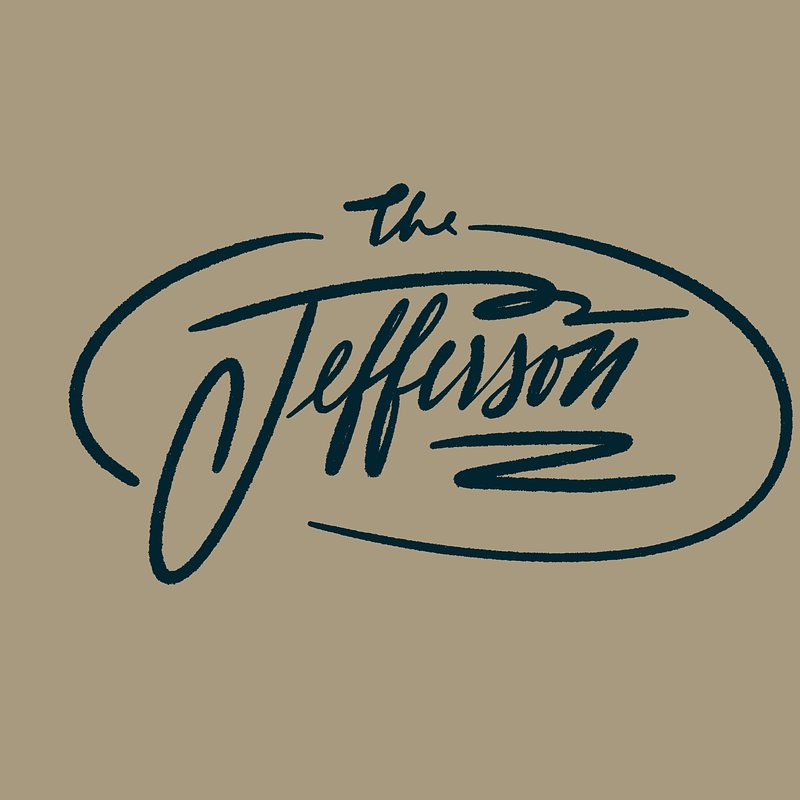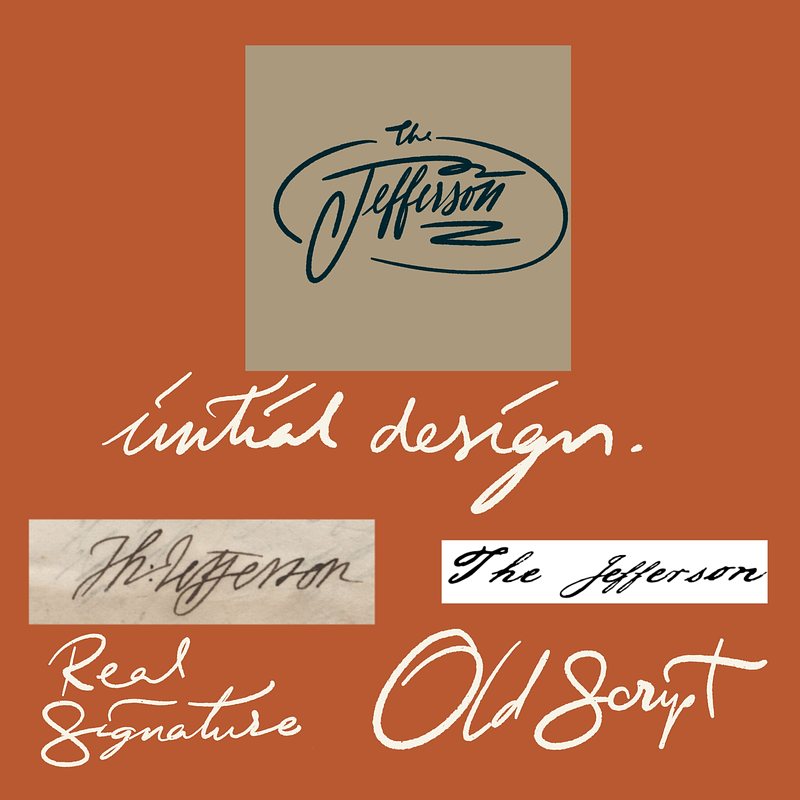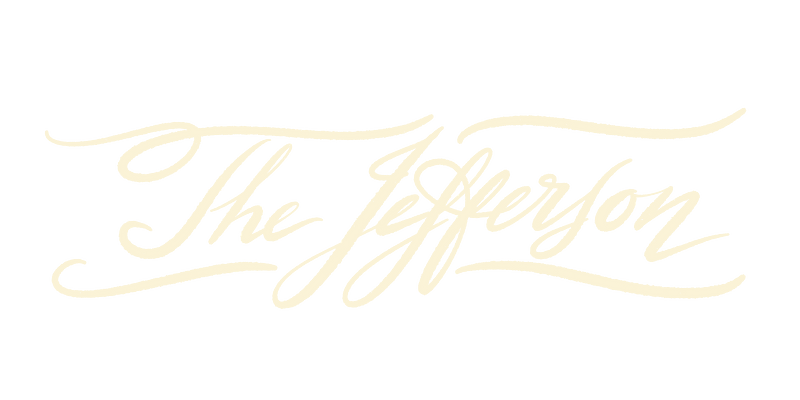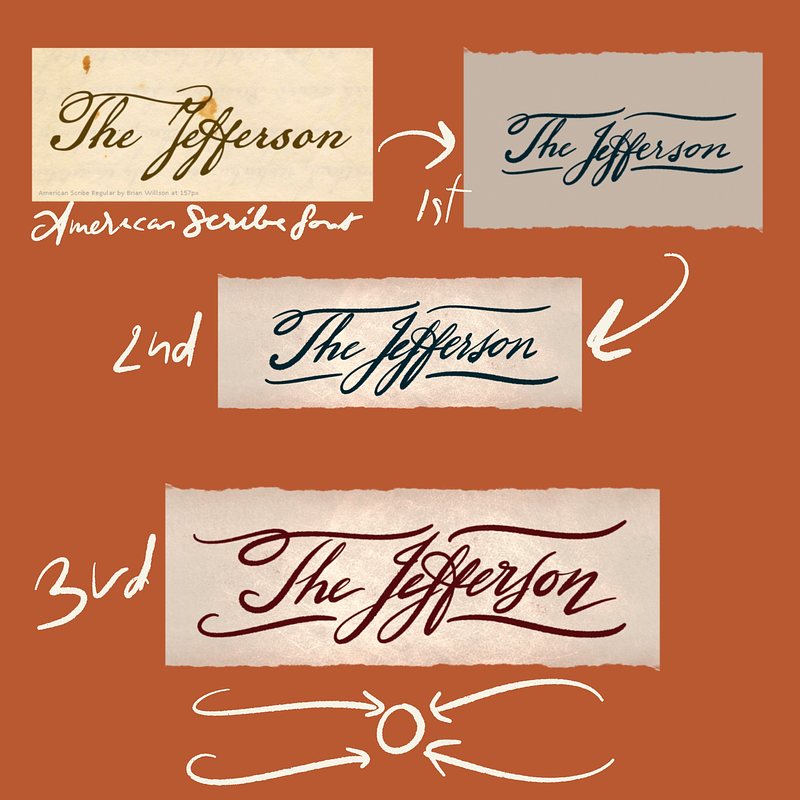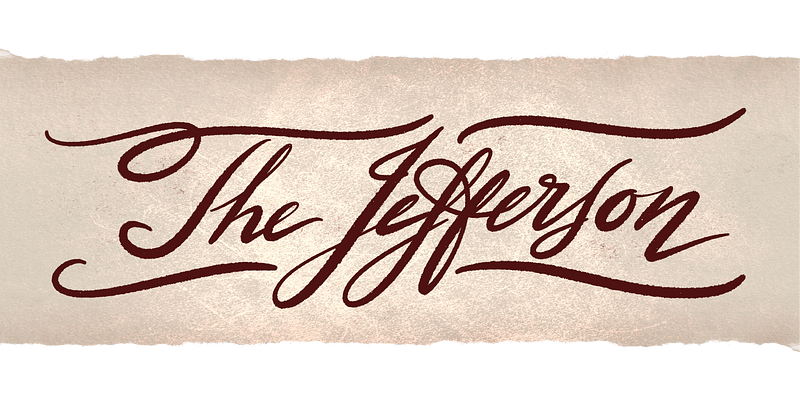
The Jefferson logo
I thoroughly enjoyed collaborating with Aaron on the logo designs. His entire brand identity resonates with me, and I loved it so much that I began drafting ideas as soon as I saw his new projects, even before he requested them!
This time, I've worked on the commissioned logo for The Jefferson Notebook case, his latest product for Strathmere Leather—one that I hope to get my hands on soon. Being able to use a product for which you designed the logo will be truly remarkable, but that's a story for another time.
Initial concept
Initially, I aimed to capture the essence of spontaneous creativity that comes from taking a notebook everywhere. I wanted something that could be scribbled in at a moment's notice while still looking great.
My initial design for The Jefferson
Conceptualizing
However, once I received the actual brief from Aaron, which called for a design reminiscent of early colonial America—specifically Jeffersonian in style, look, and feel—I had to adapt my approach.
As a result, I decided to simplify it, opting for a smoother flow rather than a hurried scribble. I'd incorporated subtle decorations with simple calligraphy to reflect how writing can grant us freedom effortlessly—writing can truly soothe our souls. This design will reflects a smoother, more elegant flow, aiming to capture that soothing essence of writing.
He green-lit the design's concept and tone, so the next thing was about the handwriting style.
My first thought was to draw inspiration from Thomas Jefferson’s signature, but it turned out to be illegible! Instead, I decided to focus on the common handwriting style of that era.
Exploring new concepts
After exploring historical documents and calligraphy samples from that era, I came across the handwritten Declaration of Independence, which truly set the tone for my project. This discovery inspired me to pursue a similar direction. Fast forward—I found the American Scribe font, which is inspired by Timothy Matlack's penmanship for the Declaration of Independence, a document authored by Thomas Jefferson. Now, we have a handwritten logo infused with such rich history! I felt like I had won the lottery with how fortunate I was!
Finalizing the Design
Next, I needed to incorporate this handwriting style into a suitable logo.
The design process for the logo
I traced the words "The Jefferson" from the typeface to understand the nature of each stroke. The final process involved stylizing certain letters to create a logo-like appearance and adding decorative elements.
My goal was to draw attention to the center of the logo as much as possible; thus, every swash needed to point toward the center without being overdone.
To further enhance the traveler’s notebook aesthetic, I added a paper background inspired by vintage papers and included scratches resembling leather texture to align with Strathmere Leather branding. Additionally, I utilized the color palette developed for the brand.